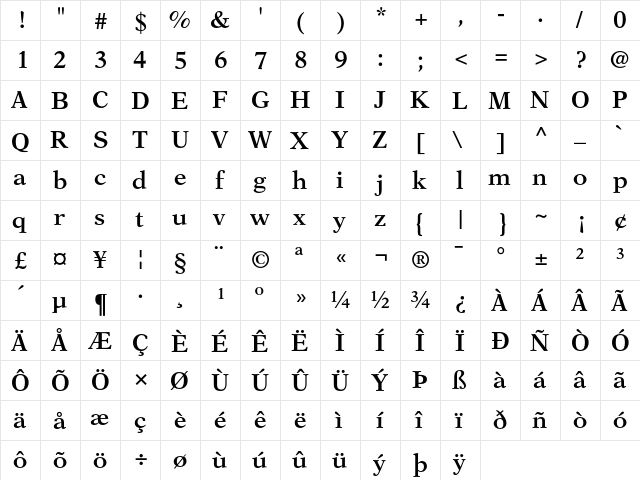
NewAster Regular
Design Context for NewAster Typeface
NewAster is a composed and adaptable typeface that performs quietly and consistently across a wide range of design contexts.